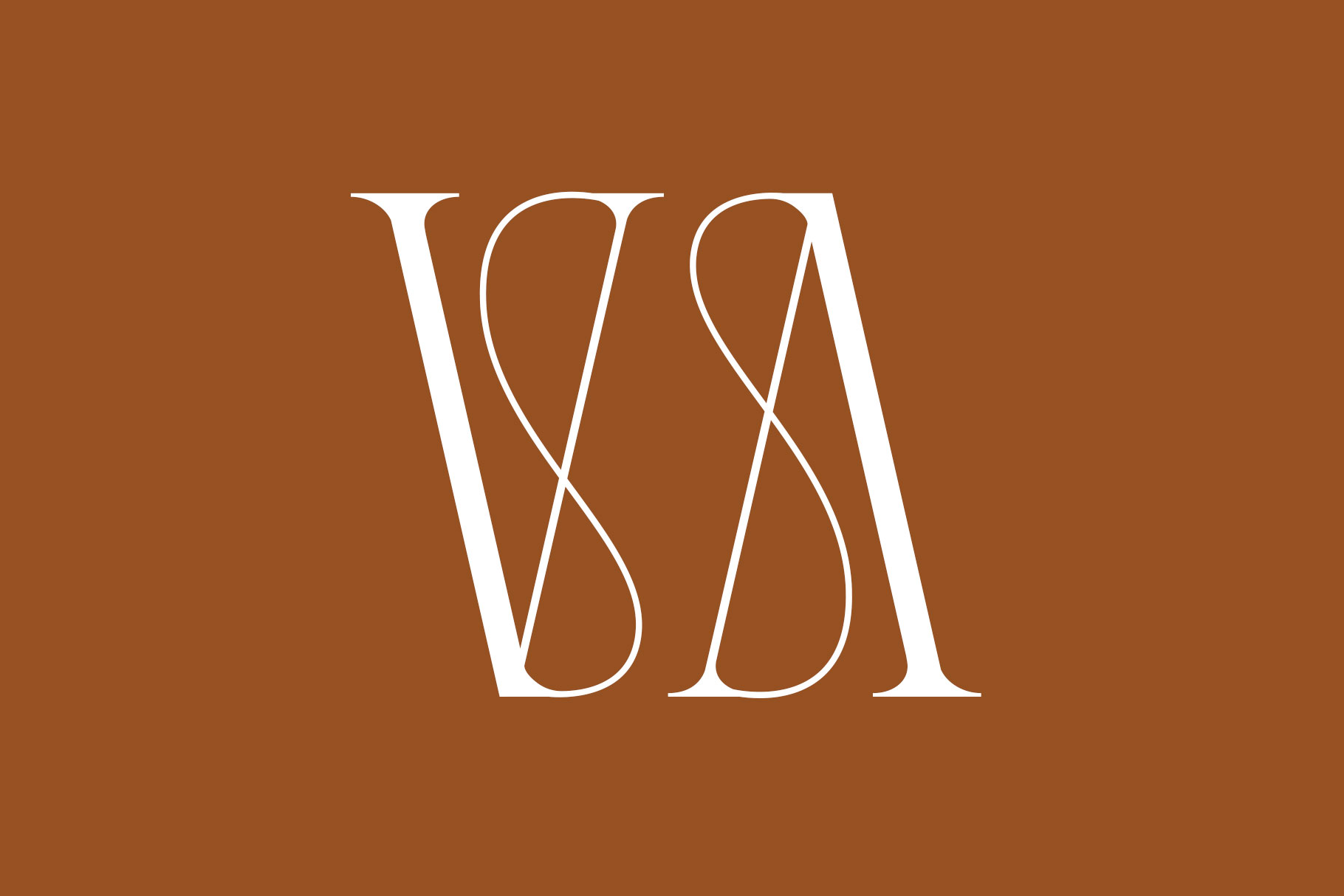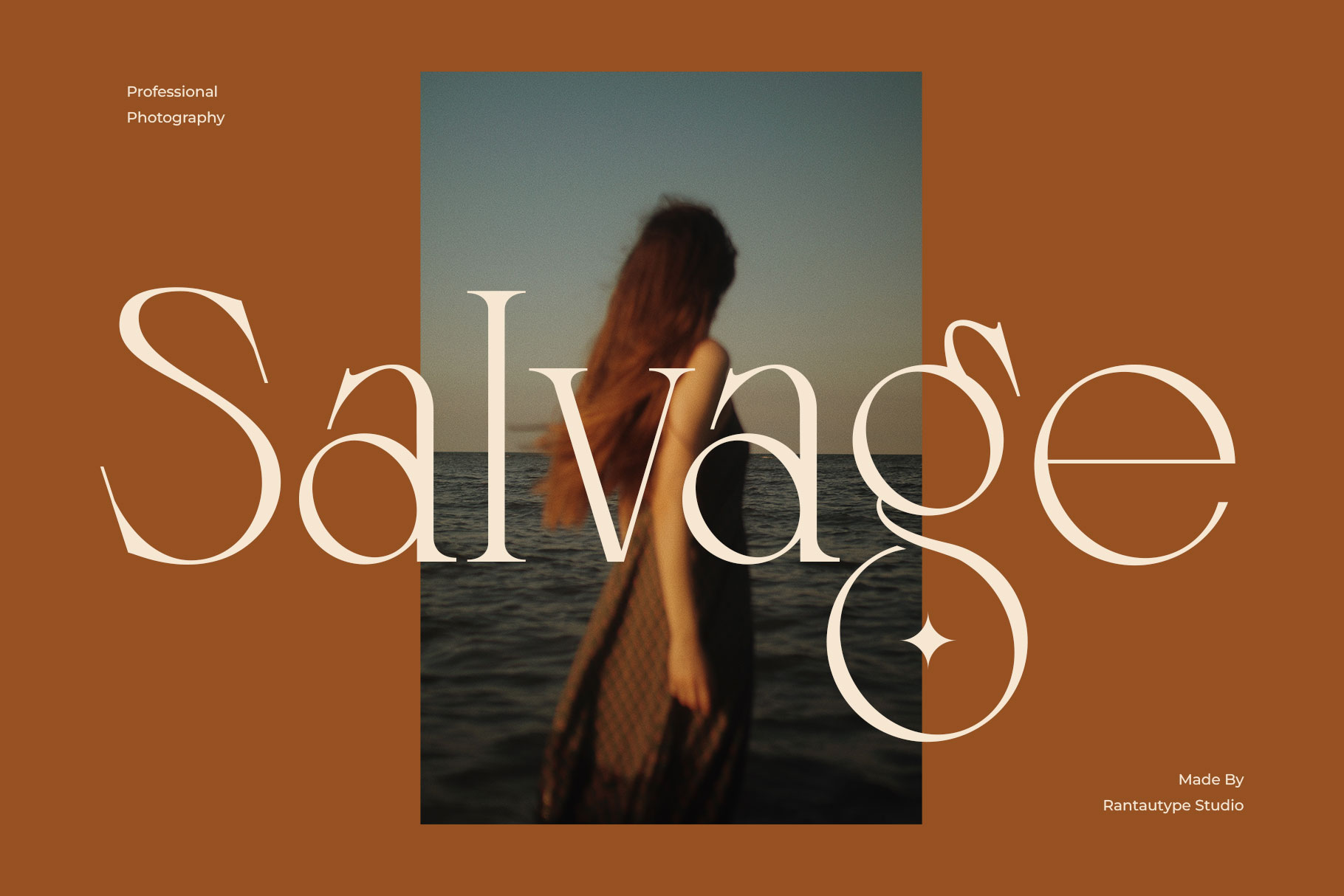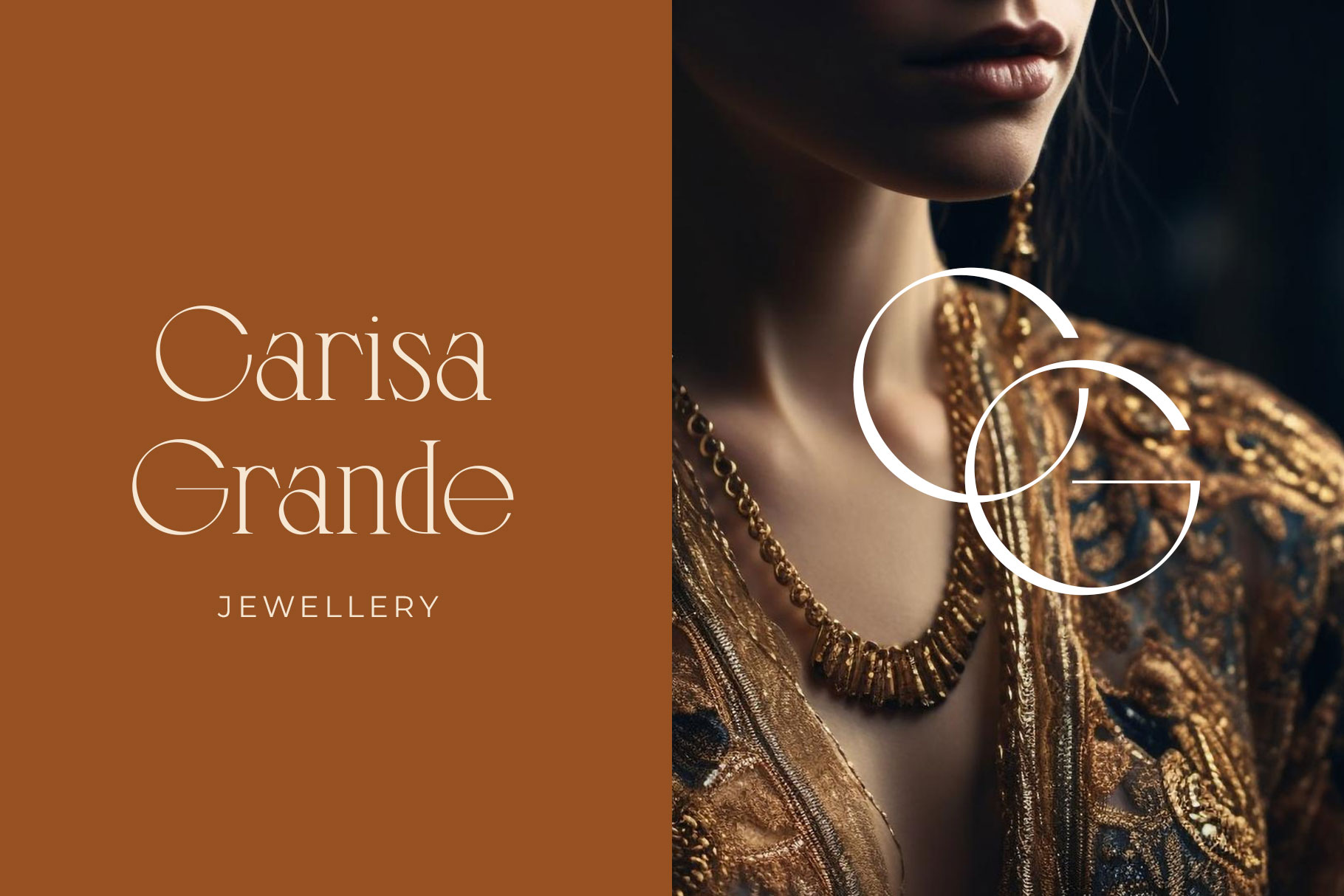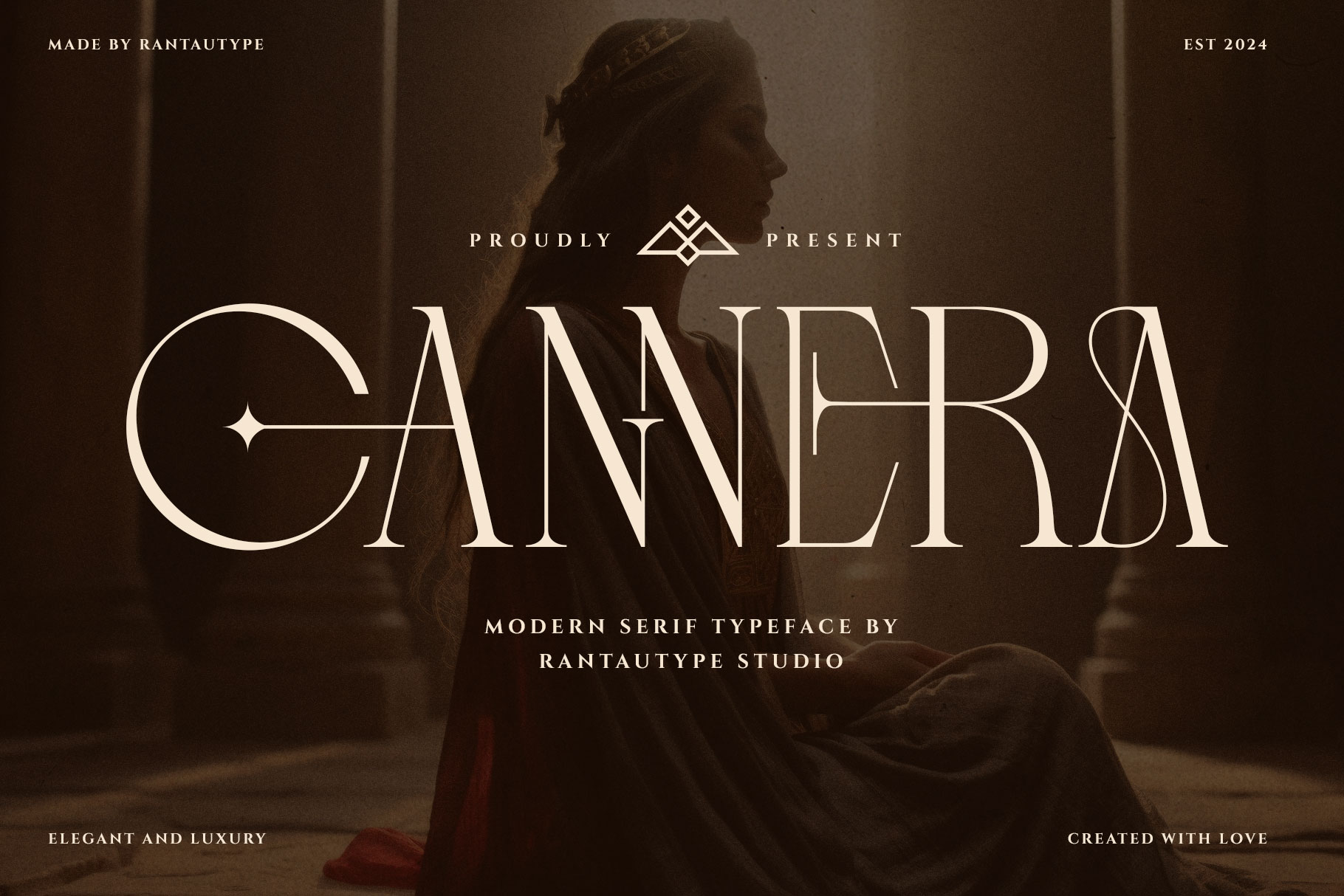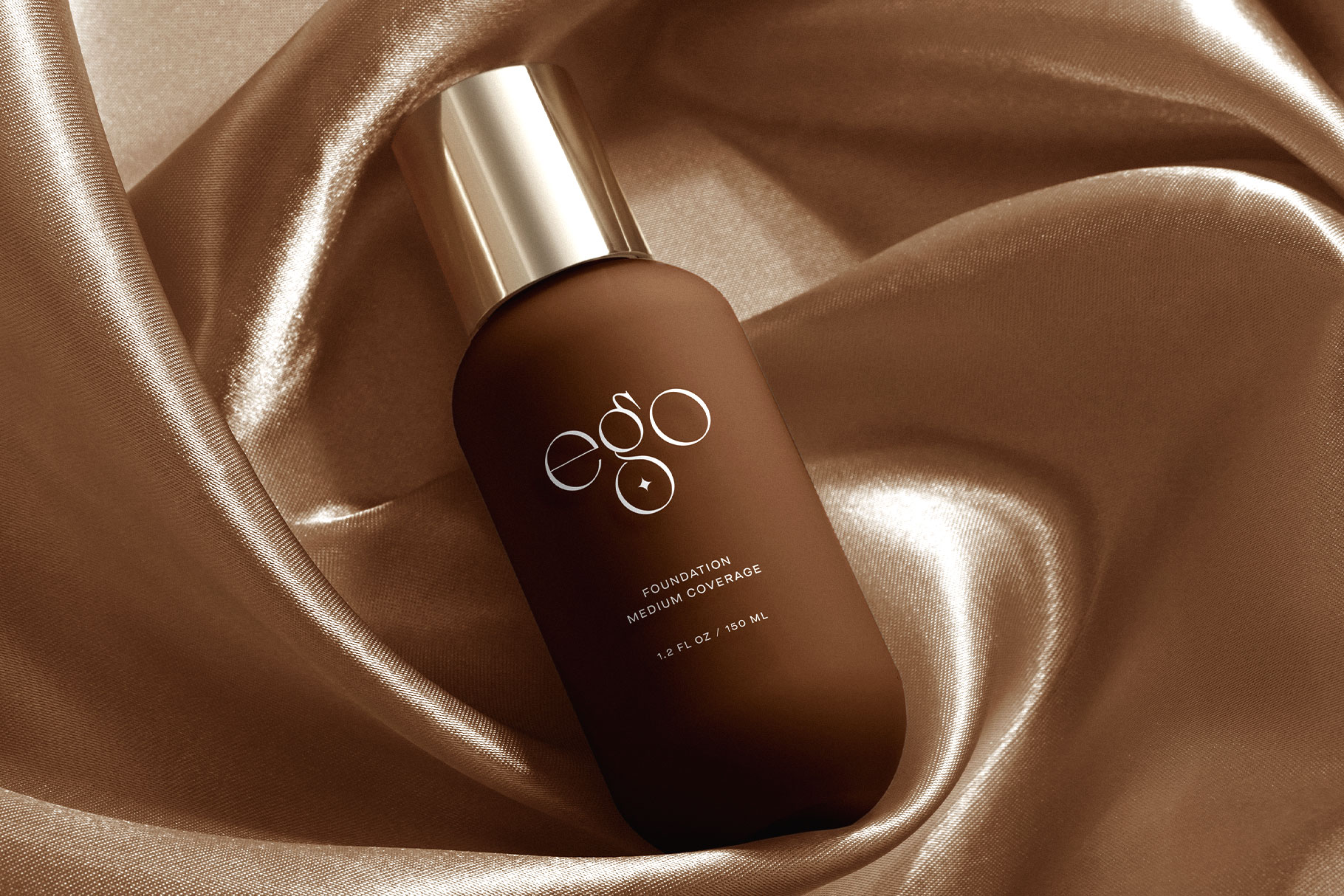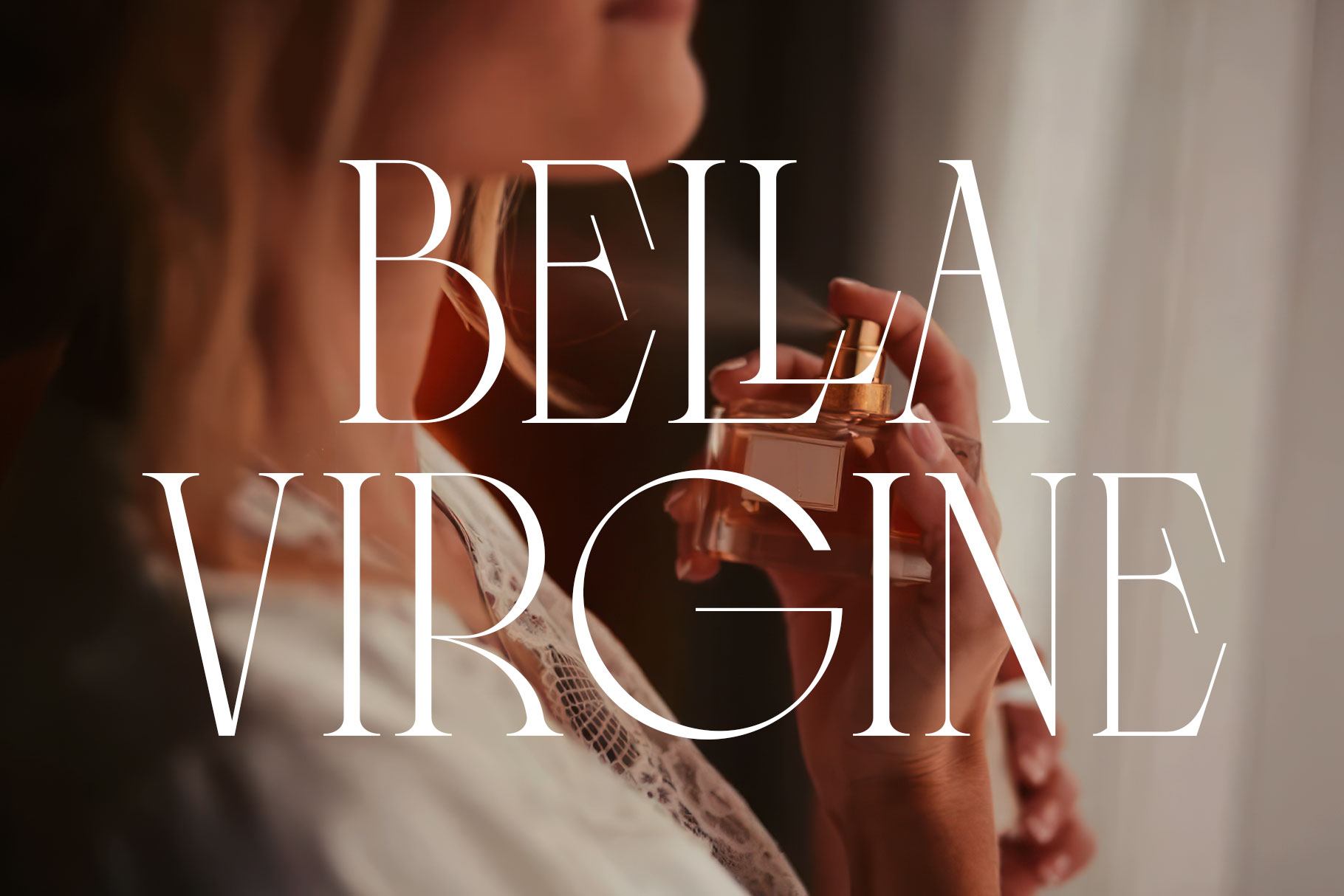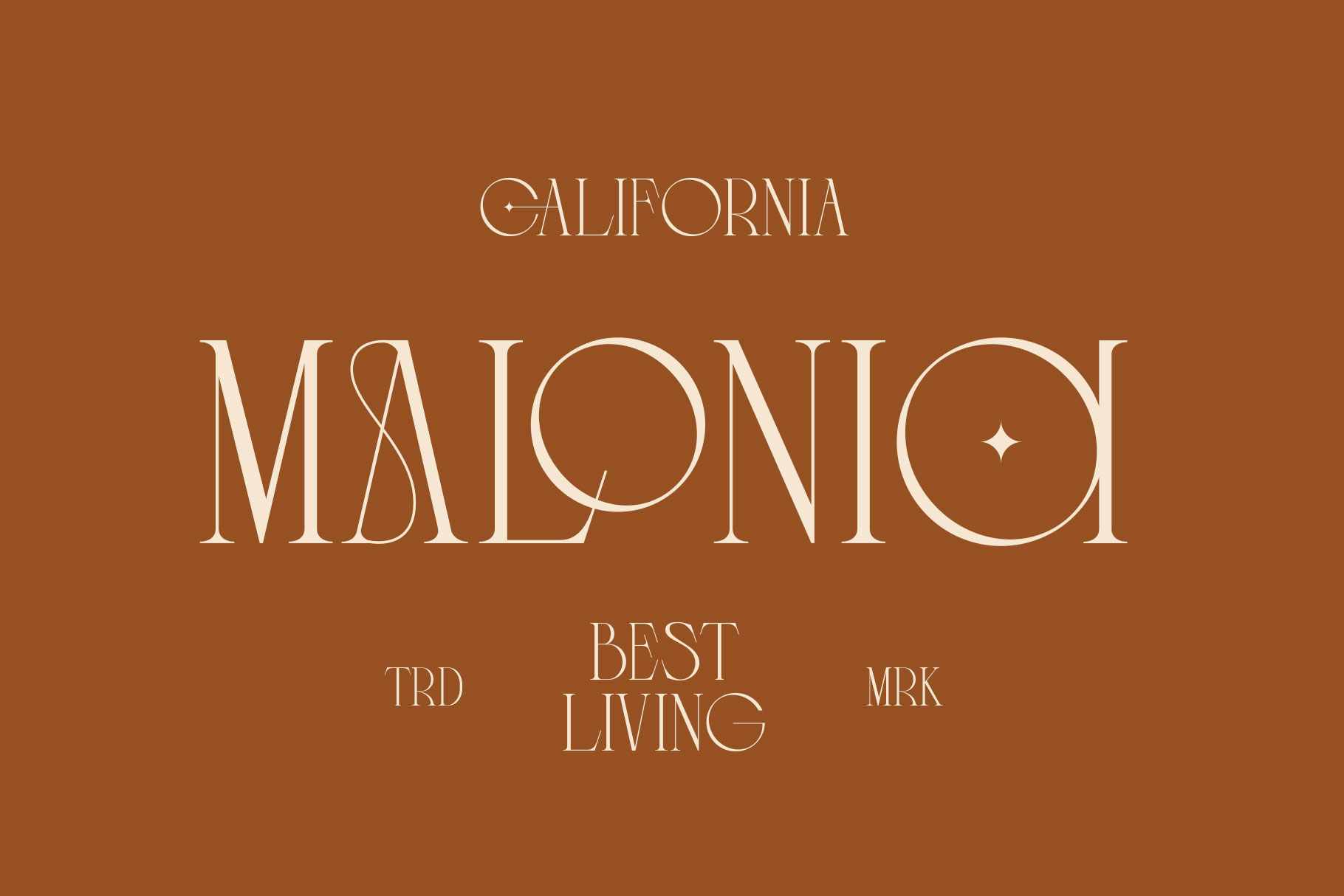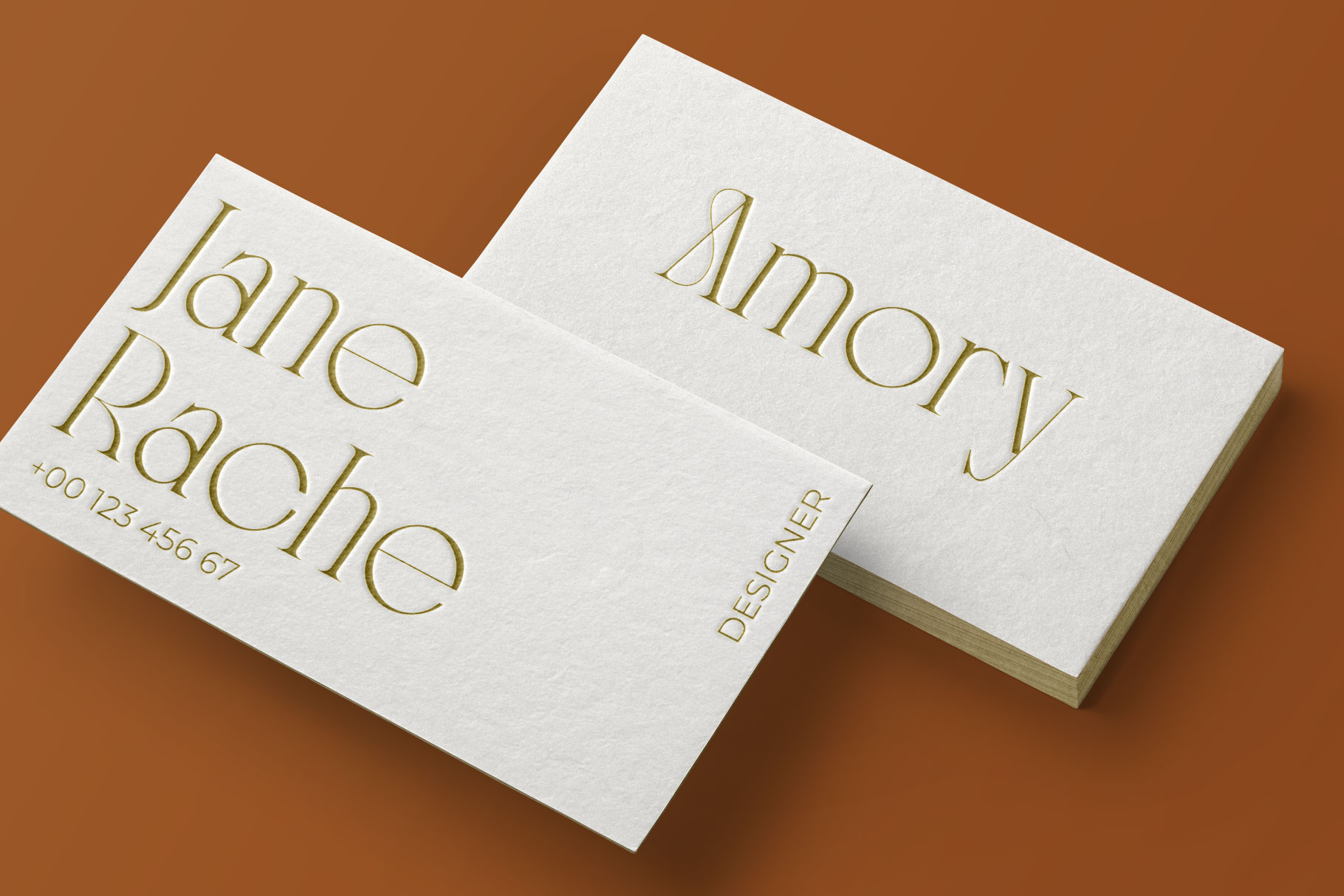
Cannera Modern Serif Font
Cannera is modern serif font with beautiful ligature. Cannera inspire with luxury branding and trend visual design.
Cannera is a perfectly choice for any creative endeavor, chic, lifestyle design such as logos, advertisements, watermark on photography, stationery, branding project, display and magazine, invitation, corporate brand, product design, label, business project and many other project with elegant touch.